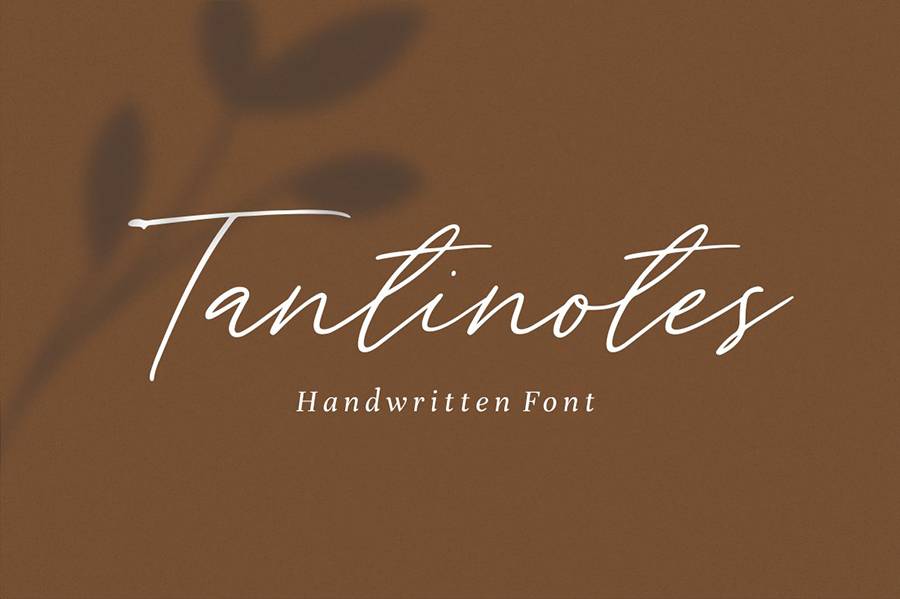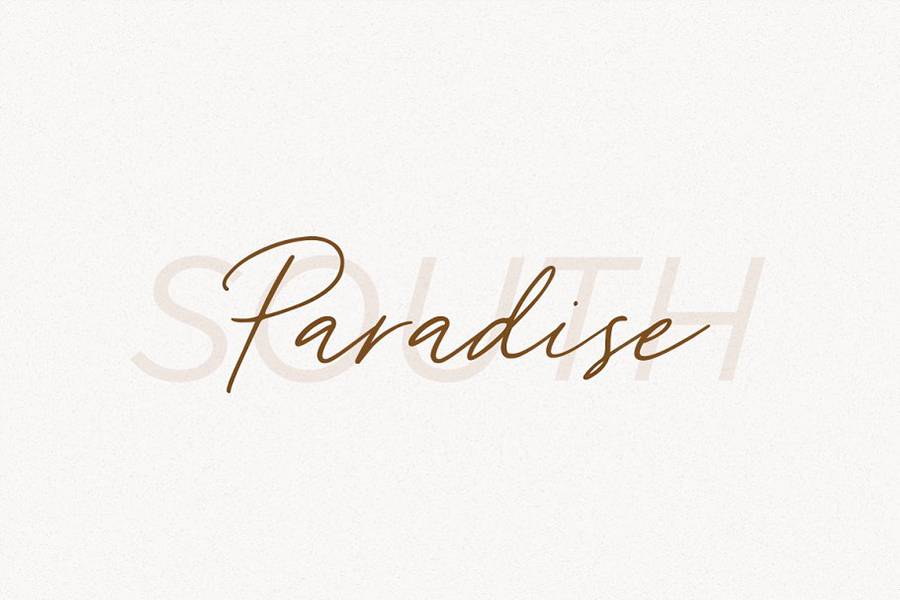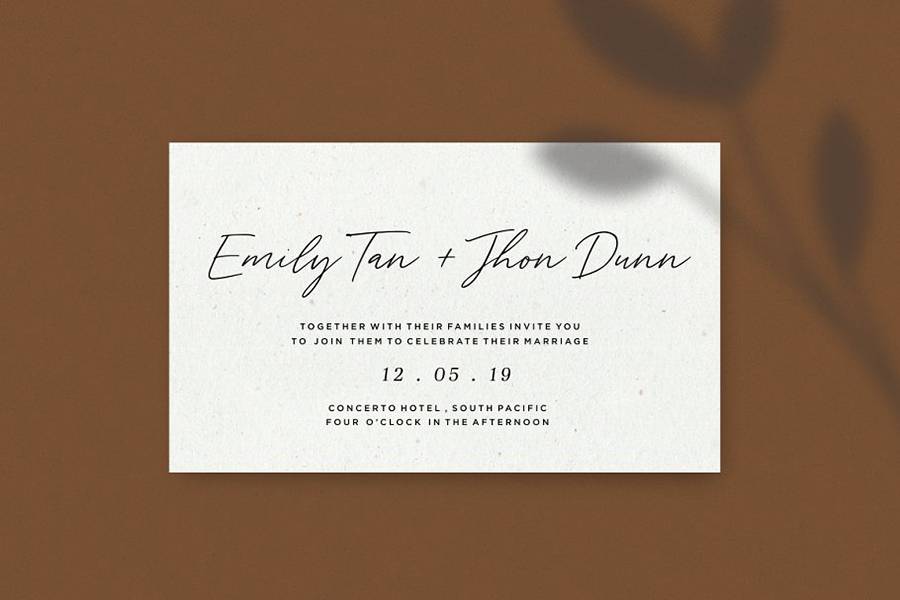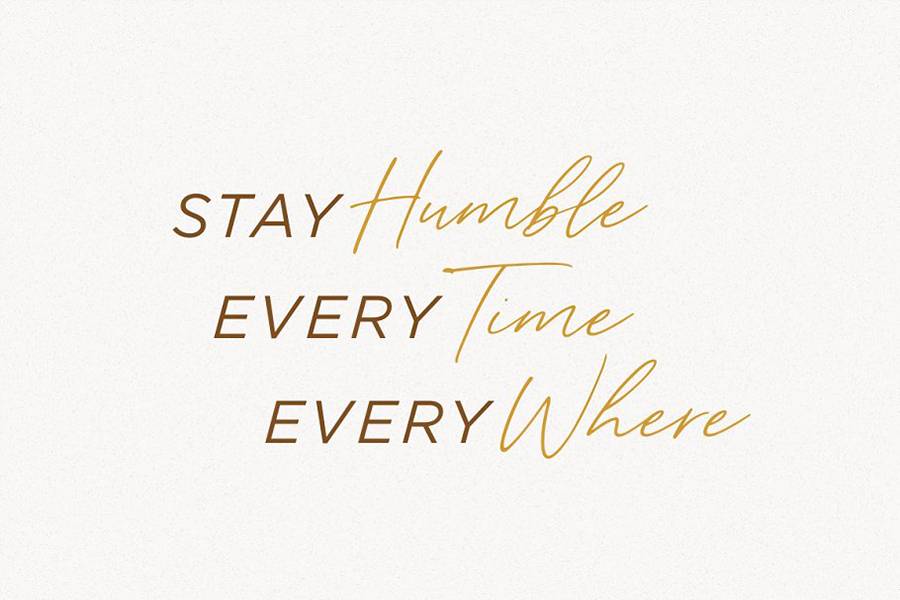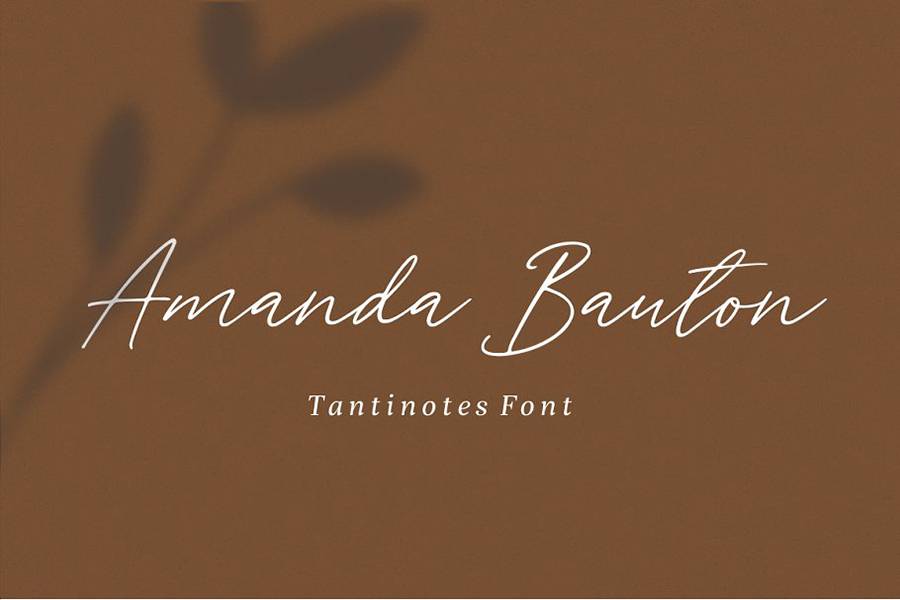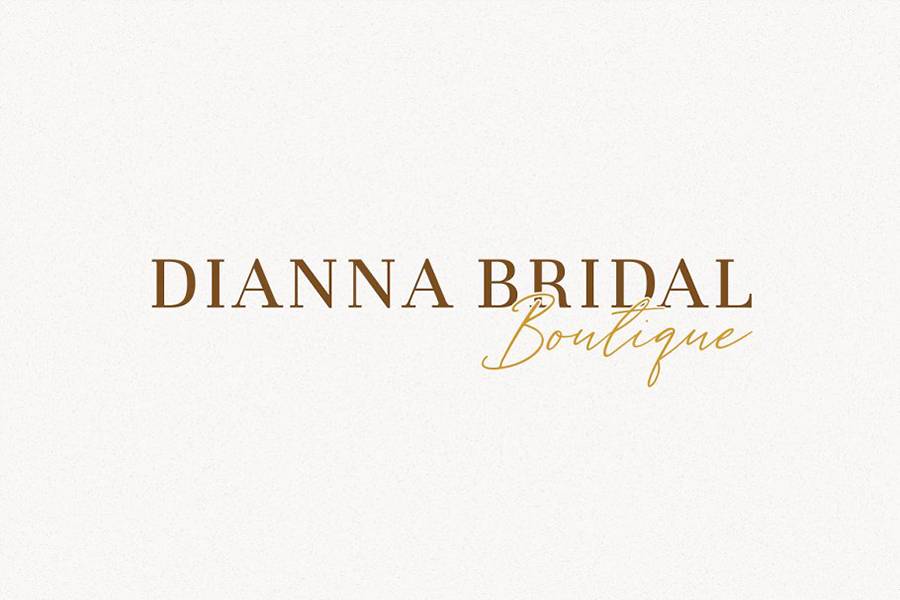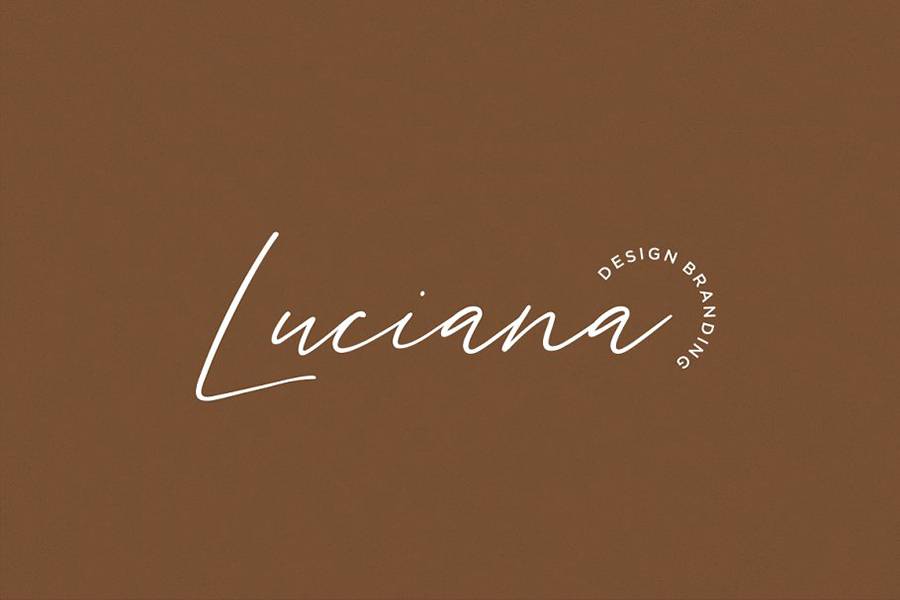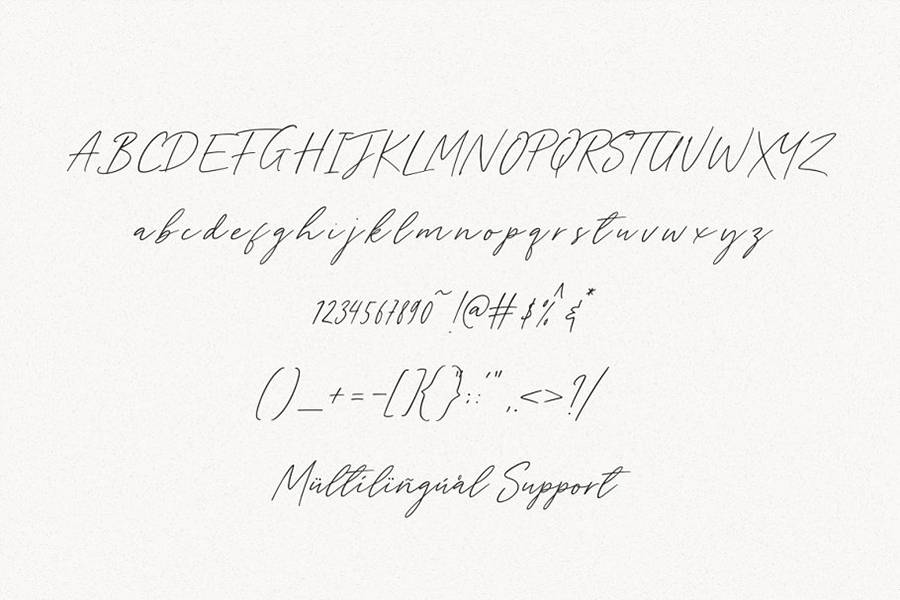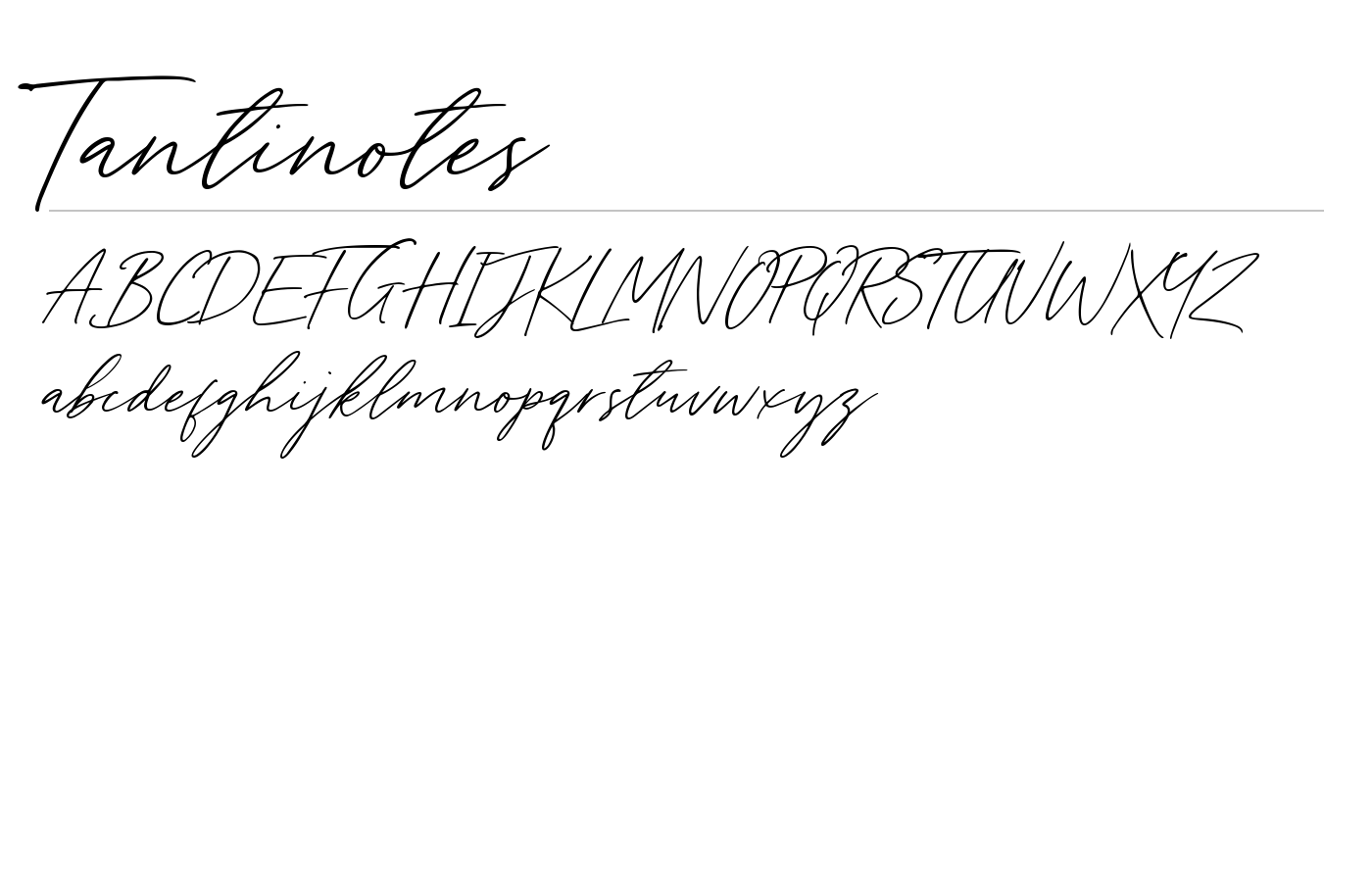
Tantinotes Handwriting Script is a delicate and elegant script font that mimics natural, flowing handwriting with slender, slightly irregular strokes. Its light weight and tall, narrow letterforms give it an airy, personal feel, making it perfect for invitations, greeting cards, or branding that seeks a refined yet approachable touch. This font works beautifully in designs that need a handwritten, intimate style without sacrificing legibility or sophistication.
Tantinotes Handwriting Script
About Tantinotes Handwriting Script
| Font family | Tantinotes Handwriting Script |
| Designer | Sronstudio |